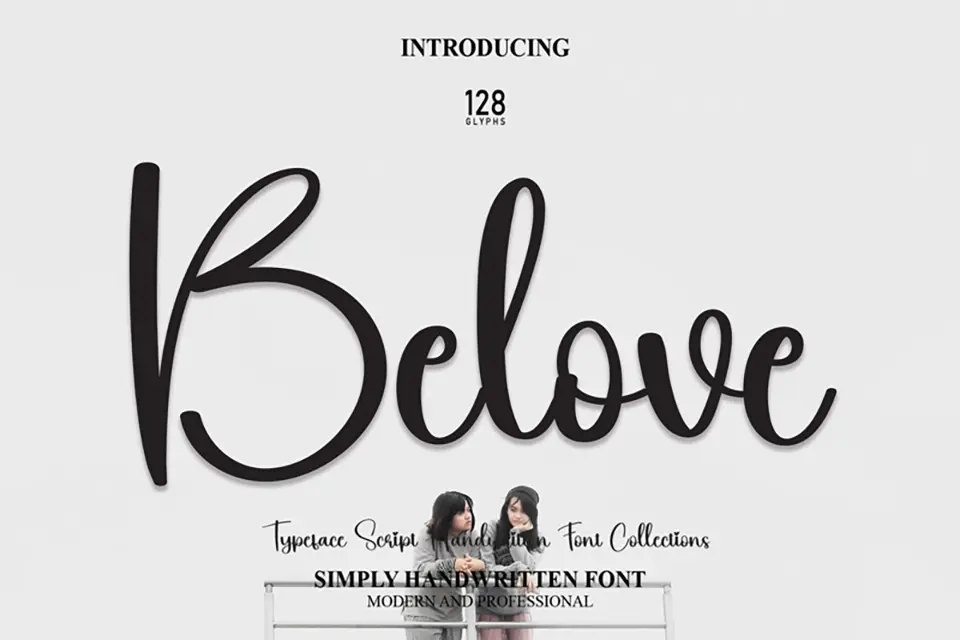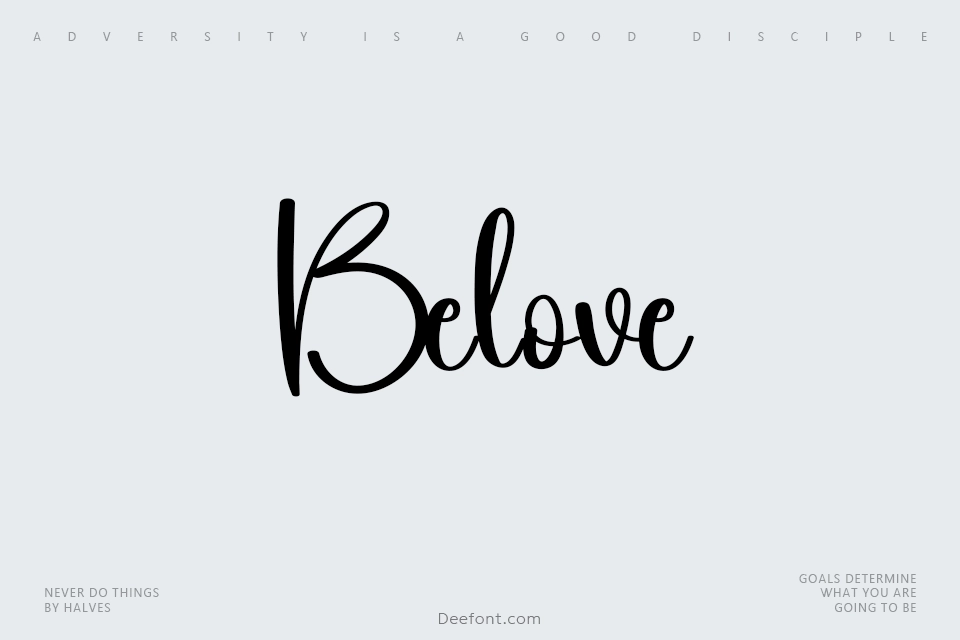
Belove Font
Belove is a sweet and elegant handwritten calligraphy font with a natural gel pen style. Perfect for wedding invitations, social media logos, product packaging, watermarks, and creative design projects. This whimsical script font brings a modern touch of sophistication to any creative work.